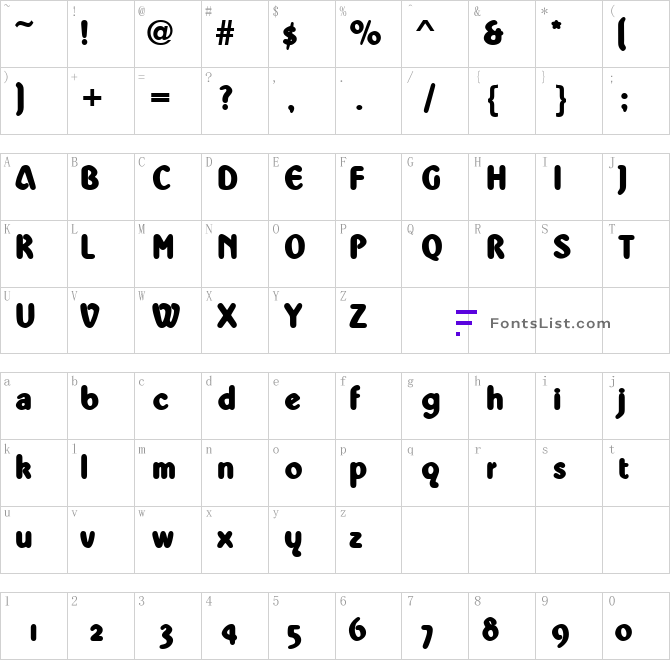
- Font Name:AbbeyURWTBol
- Full Name:AbbeyURWTBol
- PostScript:AbbeyURWT-Bold
AbbeyURWTBol.ttf is a very beautiful artistic font, AbbeyURWTBol.ttf is widely used in the design and printing of various books and pictures,AbbeyURWTBol.ttf has a strong visual impact,AbbeyURWTBol.ttf is a commonly used font in newspapers, magazines and books, and is used in posters, e-commerce Poster design, store design, logo design, font design and other fields.AbbeyURWTBol.